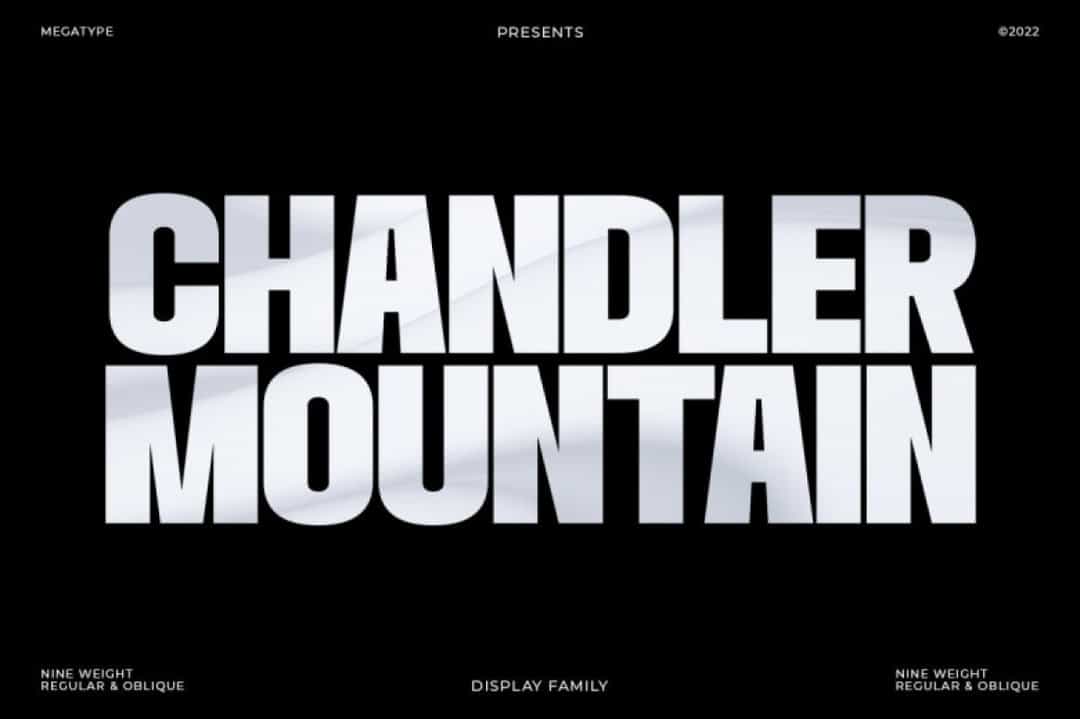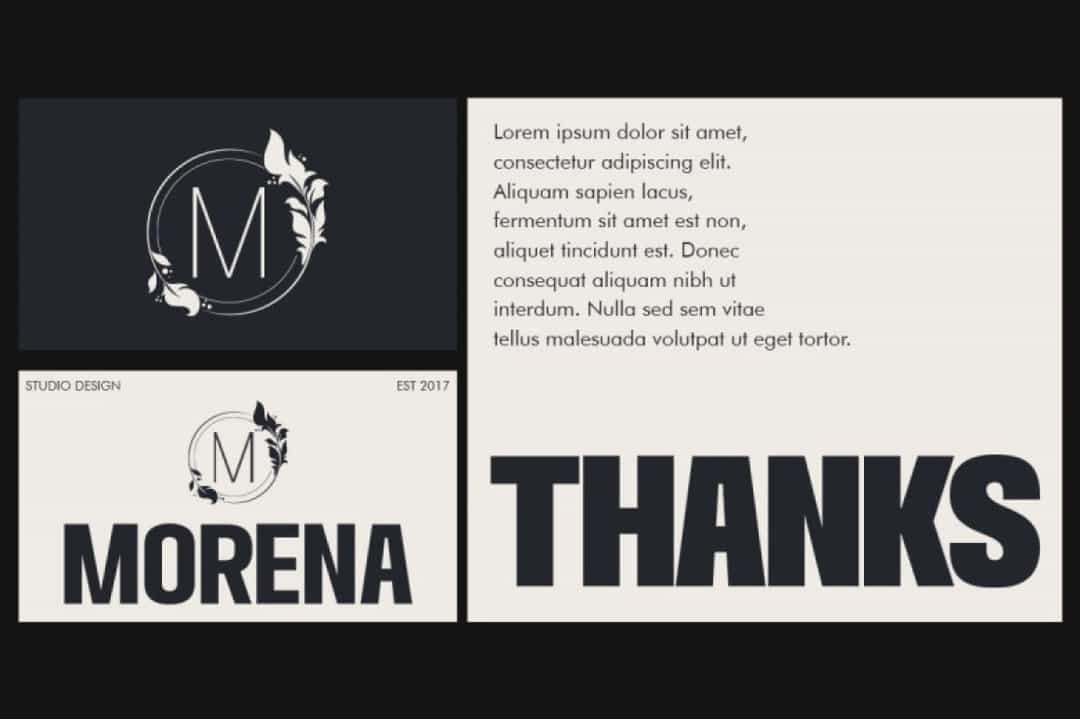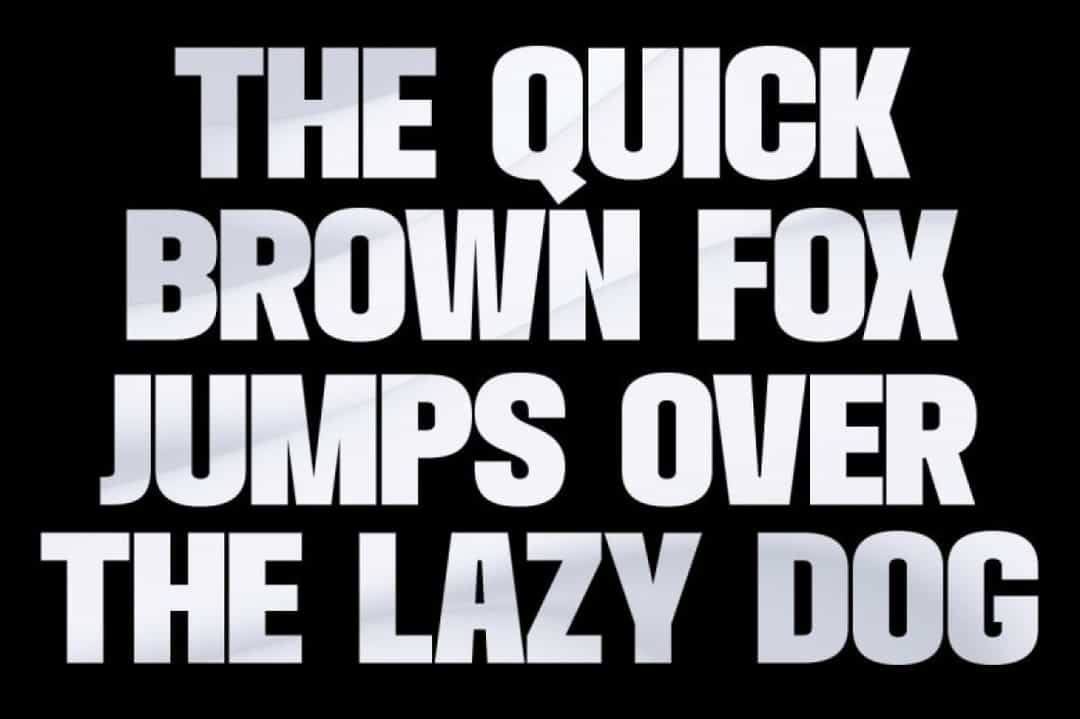
Chandler Mountain is a versatile display font designed to convey toughness and strength with contemporary aesthetics. This typeface works best in branding headlines, logos and headlines magazines, high fashion Posters as well as Quotes.